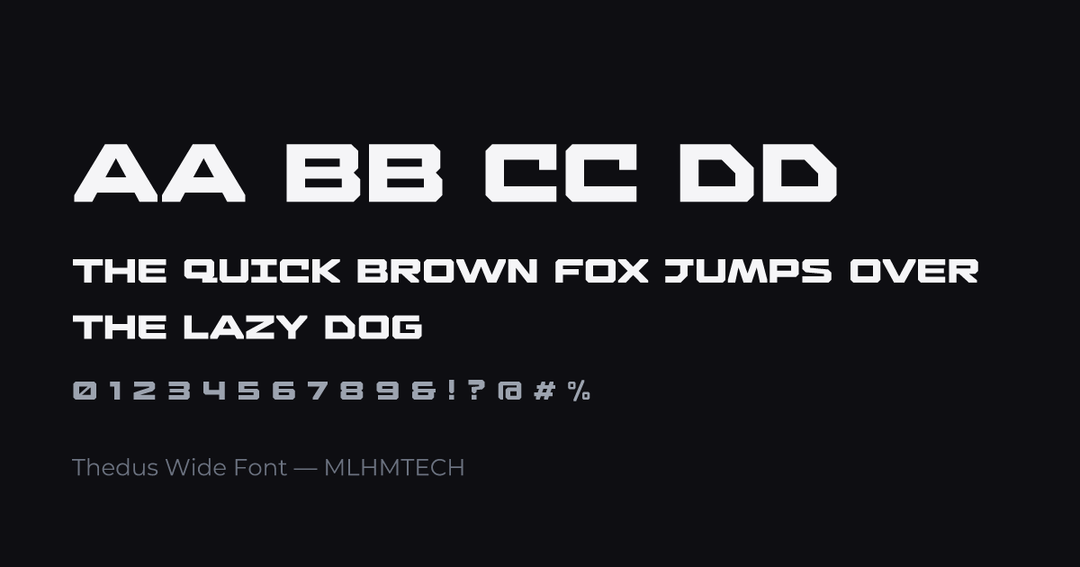
Thedus Wide Font
Thedus Wide is a bold, modern display font with a wide, impactful presence. Ideal for headlines, logos, and branding that demands attention.
Thedus Wide is a striking display typeface that combines geometric precision with a contemporary edge. Its wide letterforms and strong strokes make it perfect for creating a bold visual impact in any project.
This font is versatile and works well in a variety of contexts, from eye-catching headlines and logos to posters and packaging. Its clean lines ensure readability even at large sizes, while its unique character adds a touch of personality to your designs.